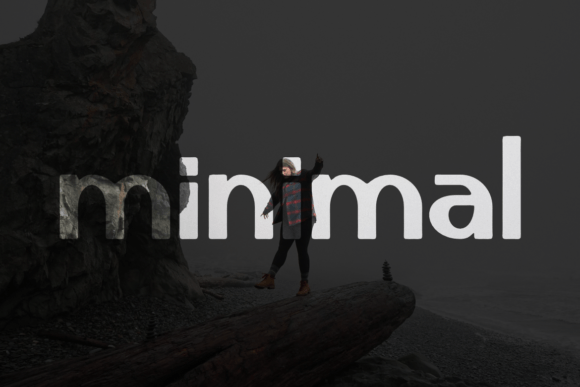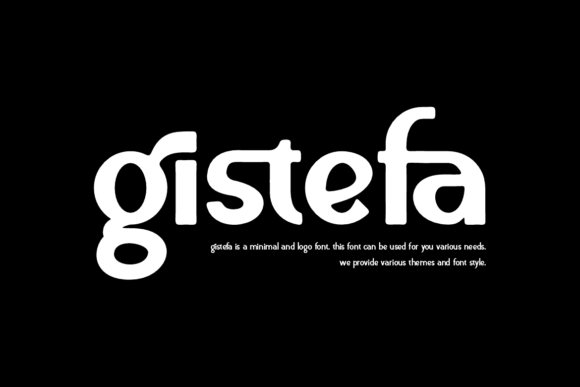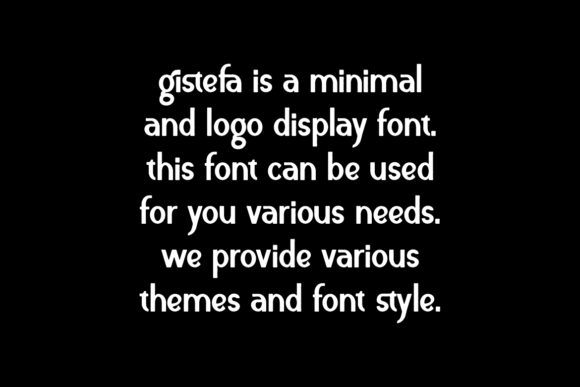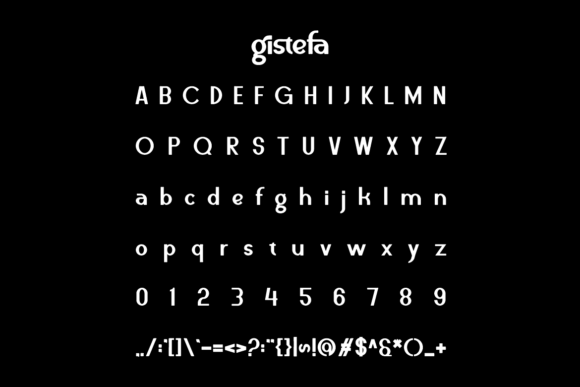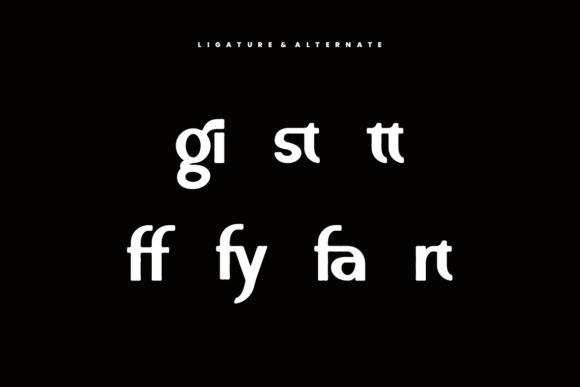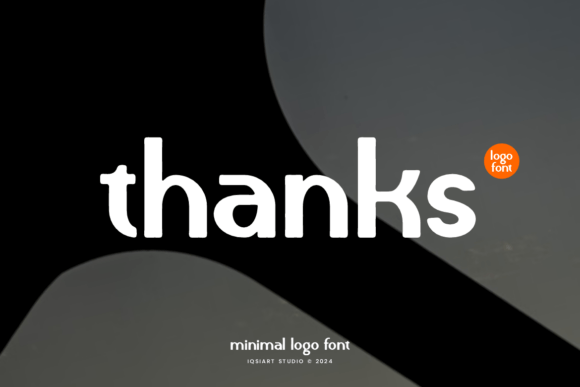
Gistefa Font: Elevate Your Design with a Clean and Modern Sans Serif
In the world of typography, fonts play a crucial role in conveying messages, evoking emotions, and creating visual identities. For designers and crafters, finding the perfect font can be a daunting task. However, if you’re looking for a clean, minimalist sans serif font that exudes modernity and sophistication, look no further than Gistefa Font. In this article, we’ll delve into the features, benefits, and uses of Gistefa, and explore why it’s an excellent choice for both digital and print projects.
What is Gistefa Font?
Gistefa is a clean, minimalist sans serif font that boasts smooth lines and a modern design. Its simplicity and elegance make it easy to read, perfect for a wide range of applications, from digital media to print materials. The font’s sleek and uncluttered aesthetic ensures that it doesn’t distract from the content, allowing the message to take center stage.
Key Features of Gistefa Font
- Clean and Minimalist Design: Gistefa’s sans serif design ensures that your text looks modern, fresh, and uncluttered.
- Smooth Lines: The font’s smooth lines create a seamless reading experience, perfect for digital and print materials.
- Easy to Read: Gistefa’s clear and concise design makes it easy to read, even at smaller font sizes.
- Versatile: Suitable for a wide range of applications, including digital media, print materials, and more.
Benefits of Using Gistefa Font
So, why choose Gistefa Font for your next project? Here are some benefits that make it an excellent choice:
- Enhances Readability: Gistefa’s clean design ensures that your text is easy to read, making it perfect for body text, articles, and blog posts.
- Elevates Visual Identity: The font’s modern aesthetic adds a touch of sophistication to your design, making it ideal for branding, logos, and marketing materials.
- Versatile and Adaptable: Gistefa works well in various contexts, from digital media to print materials, ensuring consistency across different platforms.
- Distraction-Free: The font’s minimalist design ensures that it doesn’t distract from the content, allowing the message to take center stage.
Use Cases for Gistefa Font
Gistefa Font is suitable for a wide range of applications, including:
- Digital Media: Use Gistefa for website content, blog posts, social media graphics, and email newsletters.
- Print Materials: The font is perfect for brochures, flyers, posters, business cards, and more.
- Branding and Identity: Gistefa can be used for logos, trademarks, and other branding materials.
- Packaging and Labeling: The font’s clean design makes it suitable for product packaging and labeling.
In conclusion, Gistefa Font is an excellent choice for designers and crafters looking for a clean, minimalist sans serif font. Its smooth lines, modern design, and versatility make it perfect for both digital and print projects. By incorporating Gistefa into your design workflow, you’ll be able to create visually appealing and effective designs that elevate your brand and message.